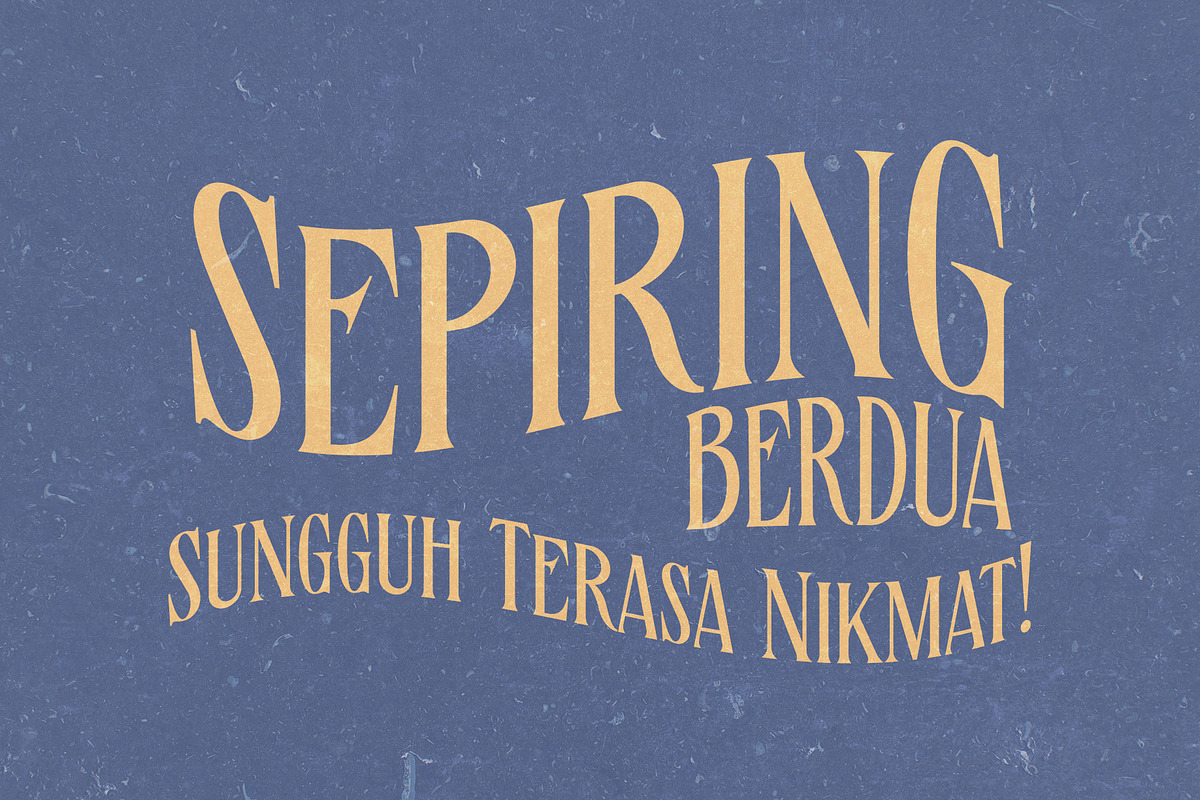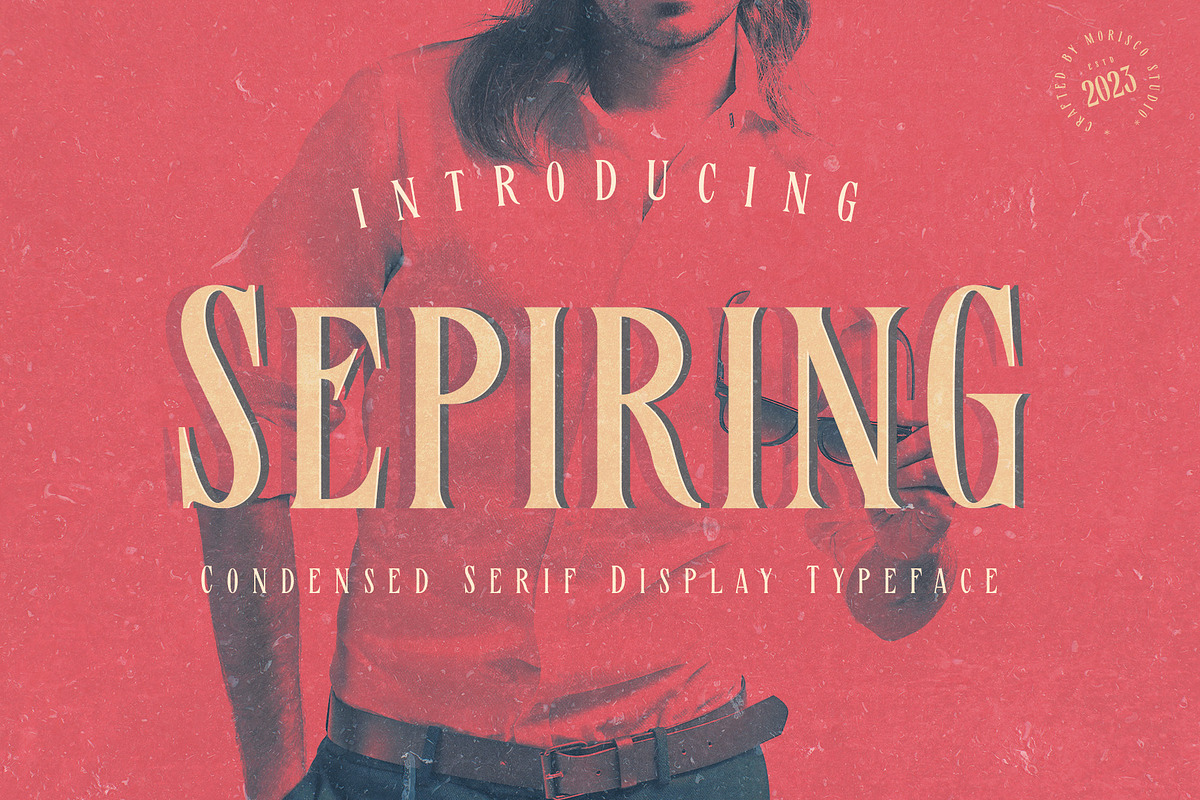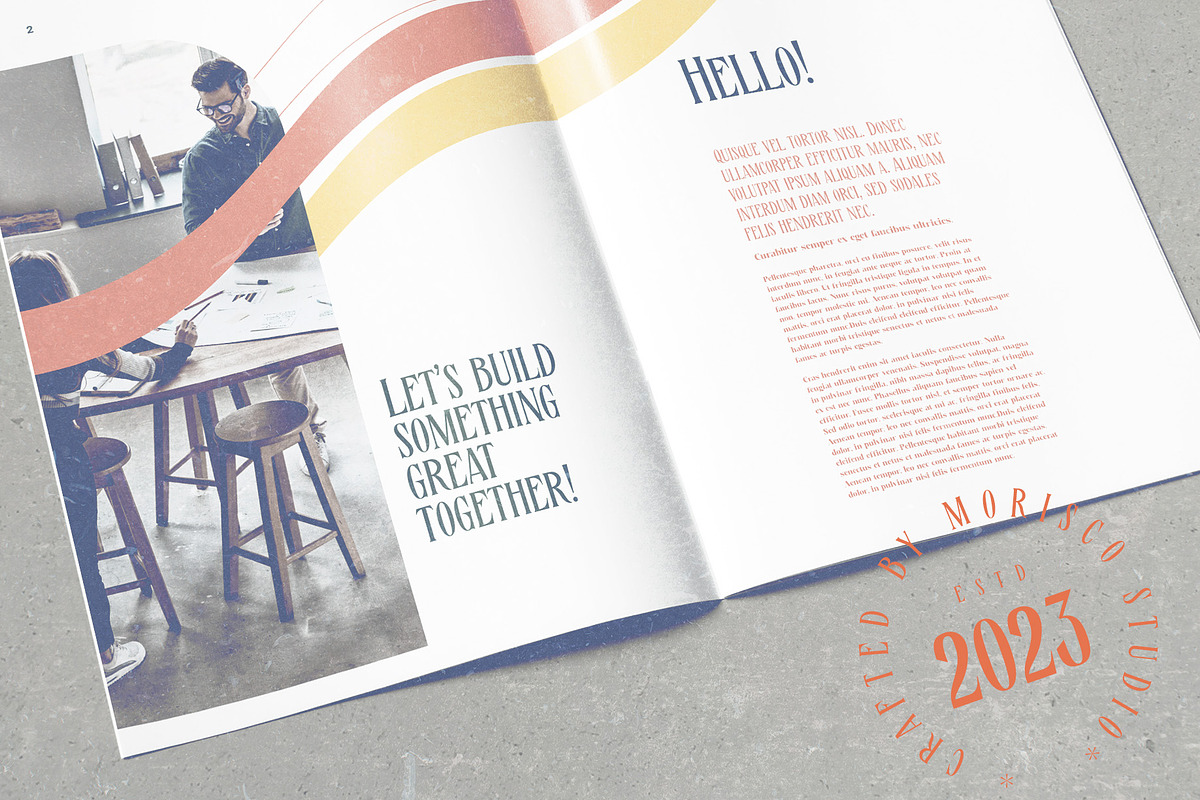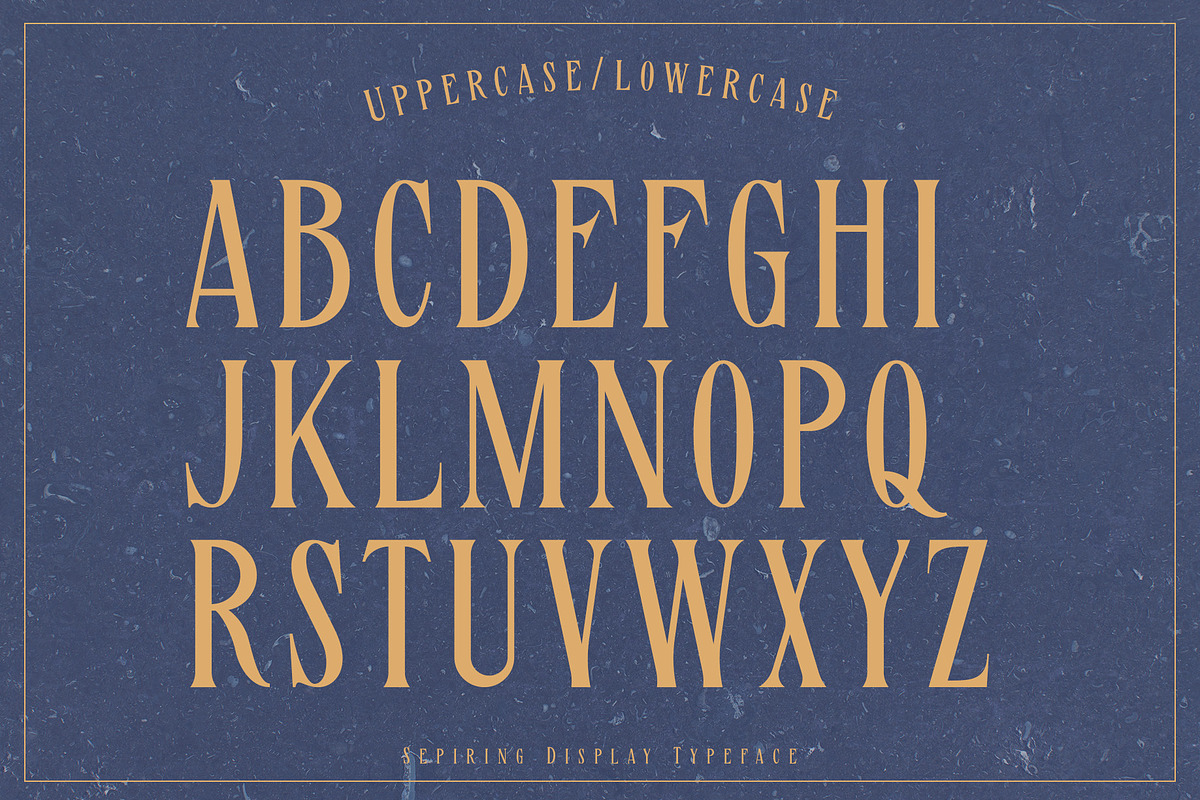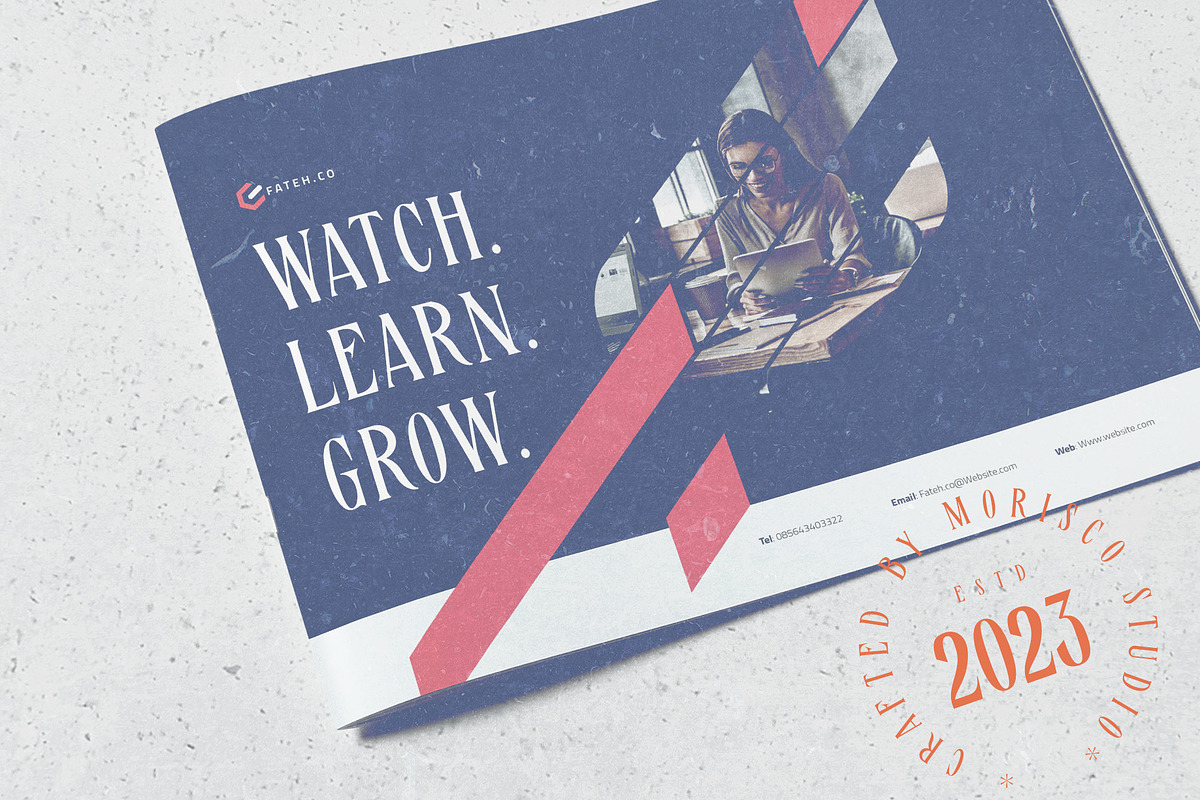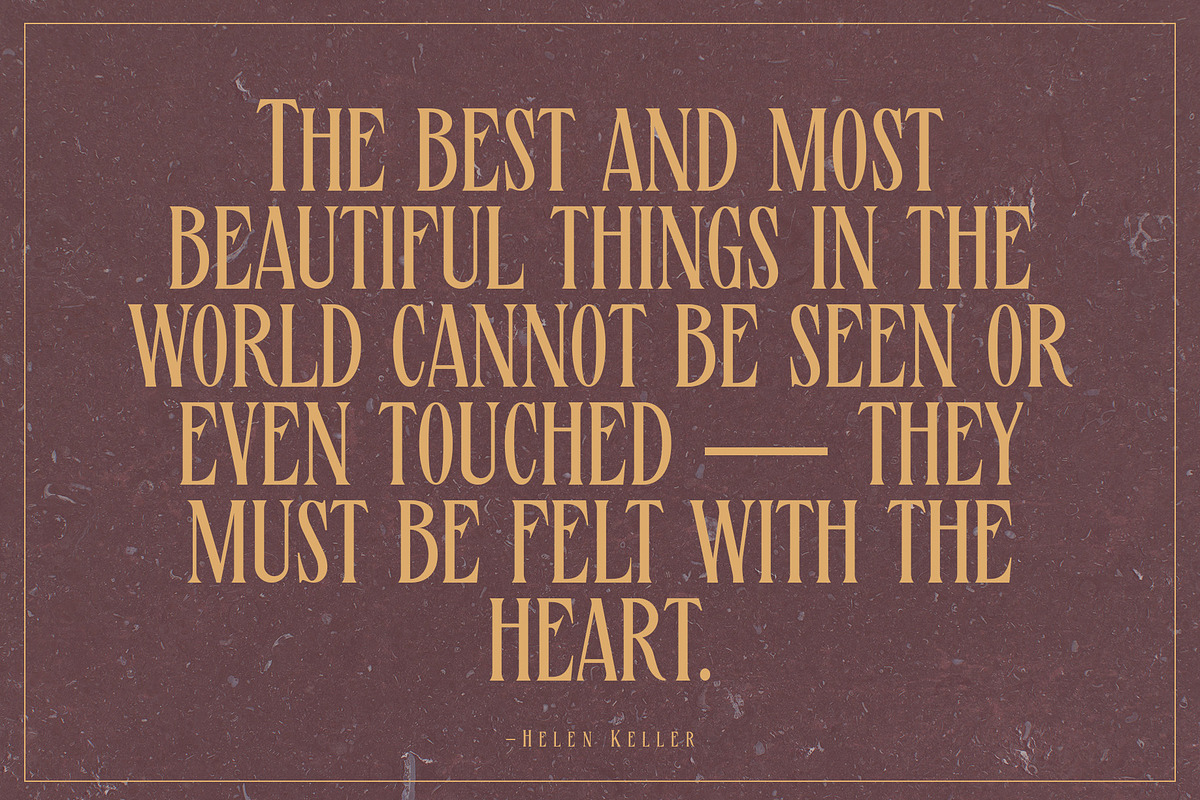
Sepiring - Condensed Typeface
Sepiring is a Condensed Serif Display Typeface with a unique character designed by morisco studio. This typeface, well-suited for headline and any project, like branding, print template, logo, and more.